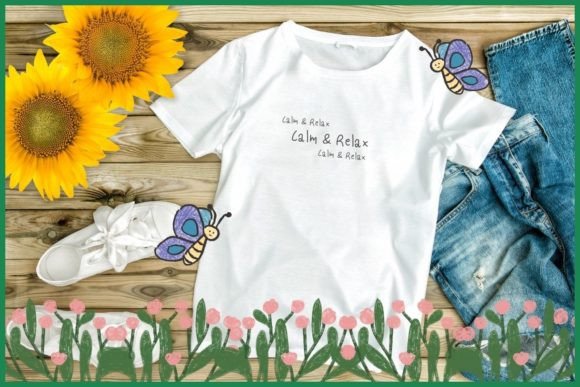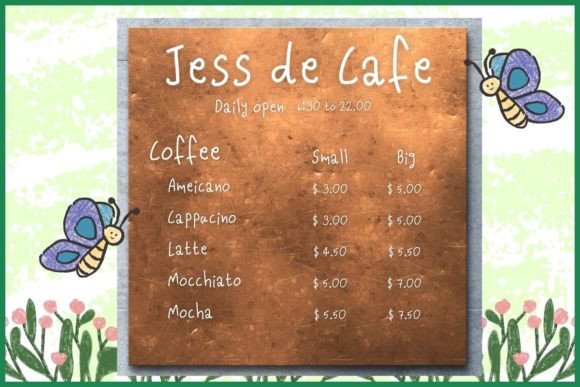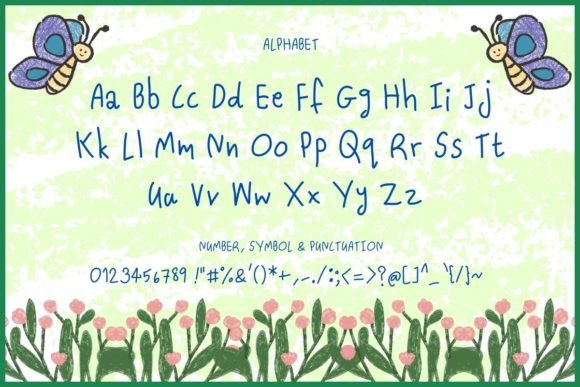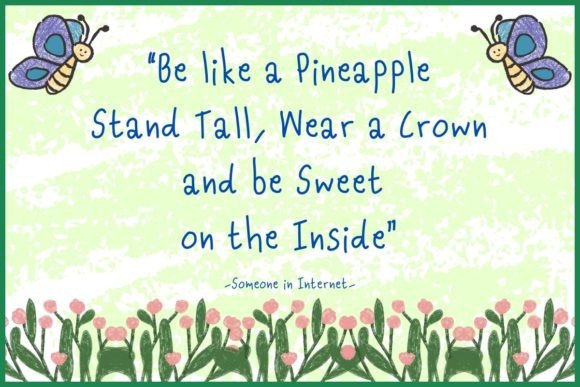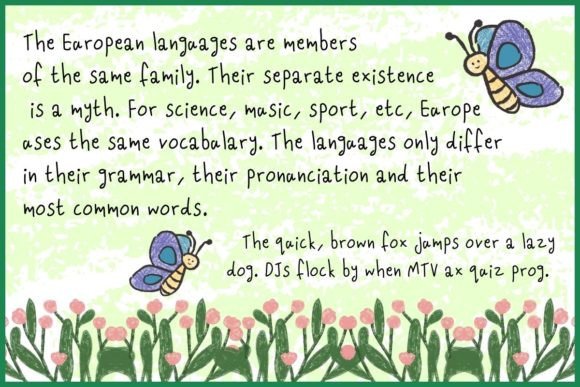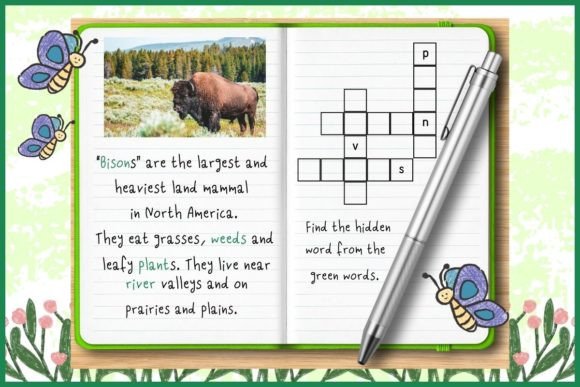
Introduction to Gifta Font
Introducing “GIFTA”, an endearing and charming typeface, artfully crafted with inspiration drawn from the innocent smile of a little girl in the midst of a vibrant rose garden teeming with bees, bugs, and butterflies.
Key Features of Gifta Font
Why Choose Gifta Font?